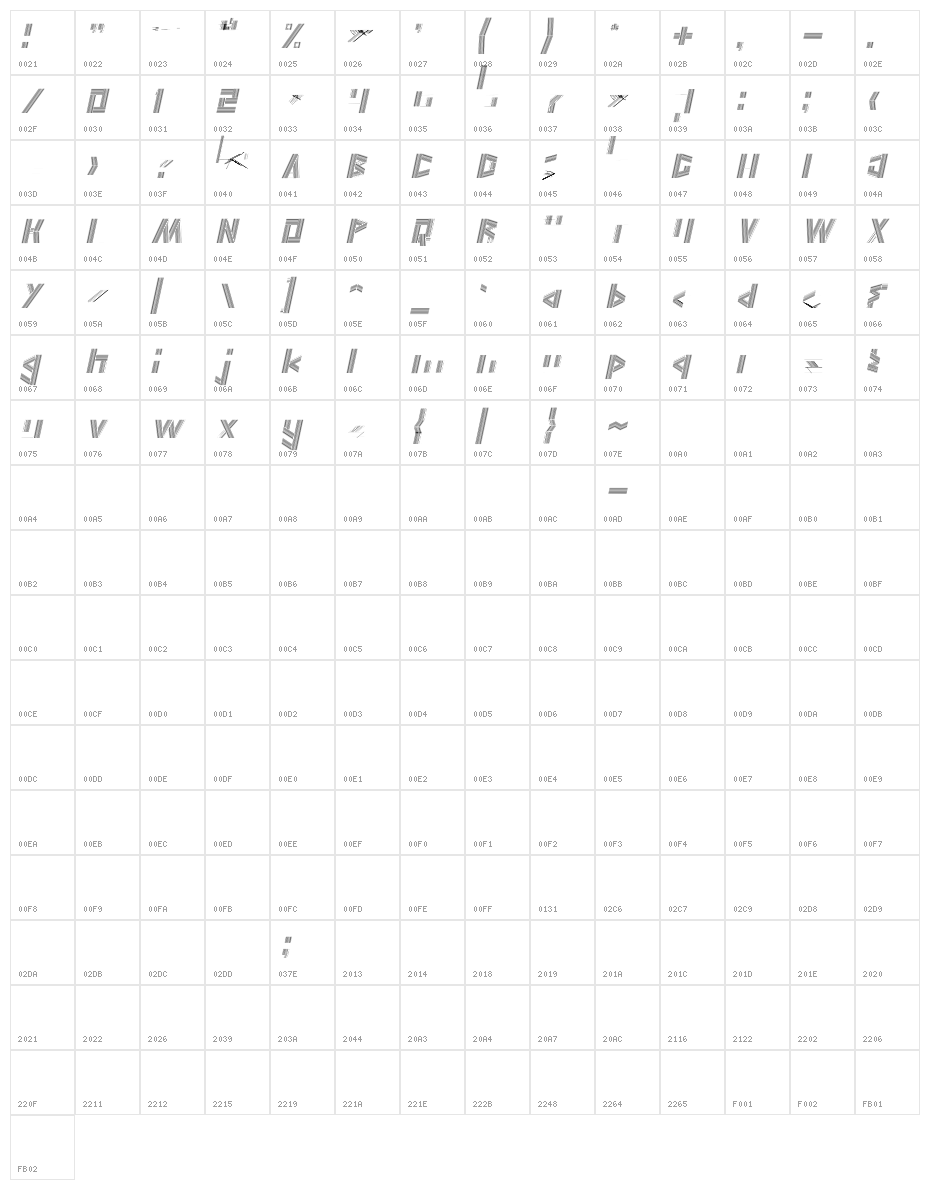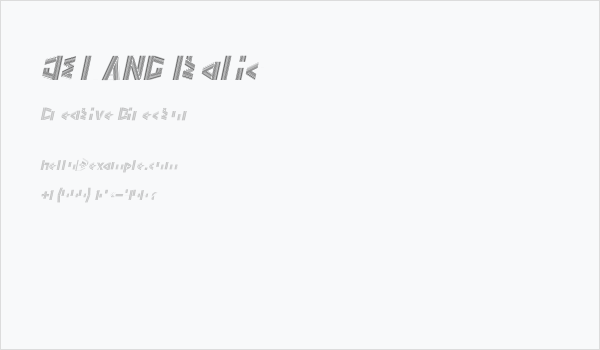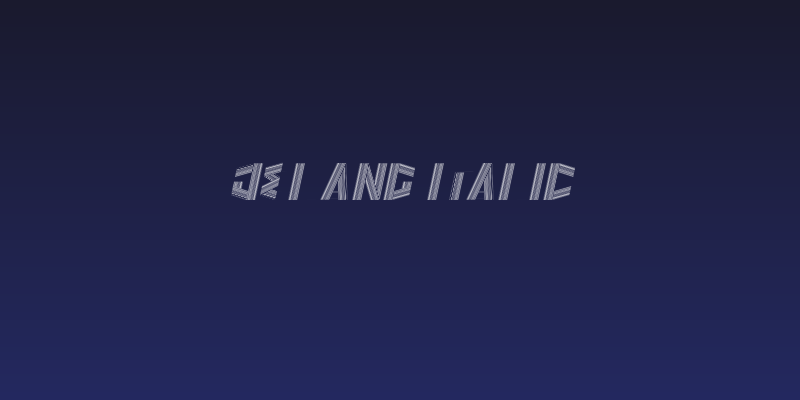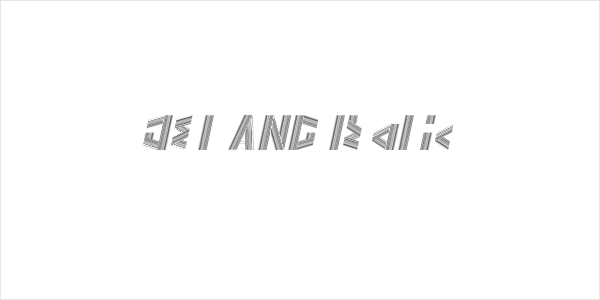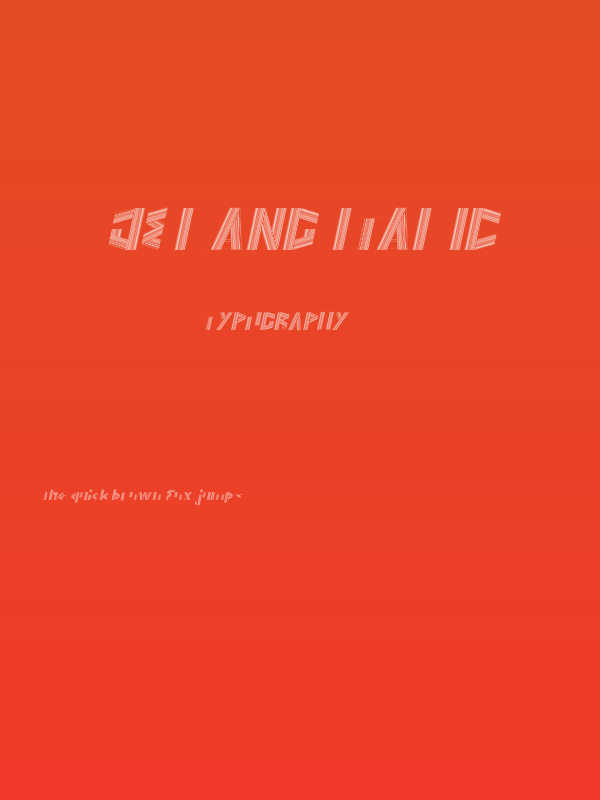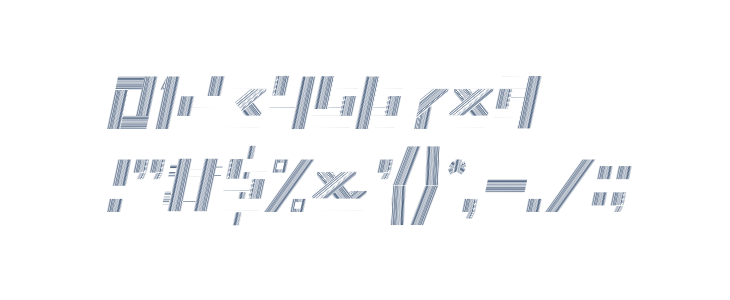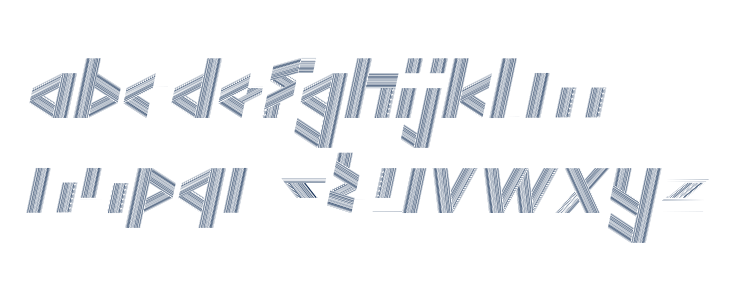
JELANG Italic Font
JELANG Italic Description
This font features a distinct, modern design characterized by its bold, italicized letterforms. Each character is constructed with a series of parallel lines, creating a dynamic, layered effect that adds depth and dimension. The angular, geometric shapes give it a futuristic and edgy appearance, making it stand out in any design. The uppercase and lowercase letters maintain a consistent style, while the numerals and special characters complement the overall aesthetic. The font's unique structure makes it ideal for projects that require a strong visual impact.
| Proposed Projects | Ideal for futuristic branding, tech-related designs, posters, and digital media. |